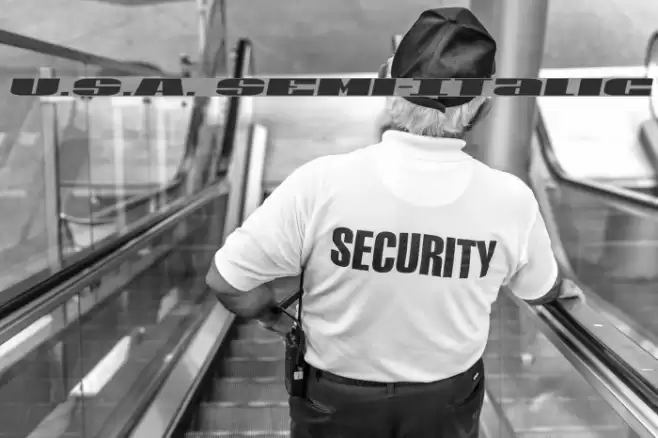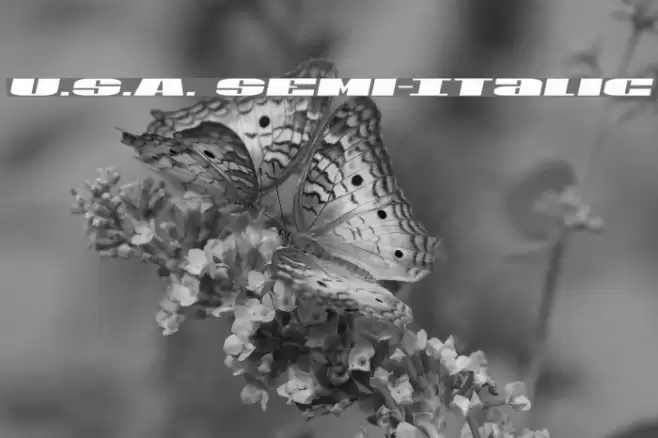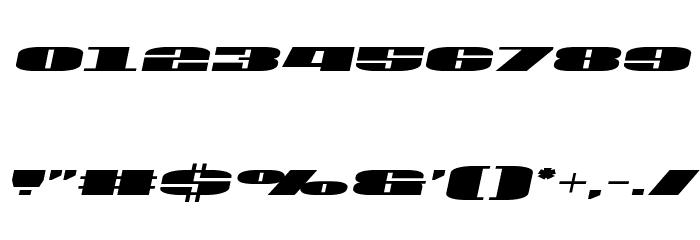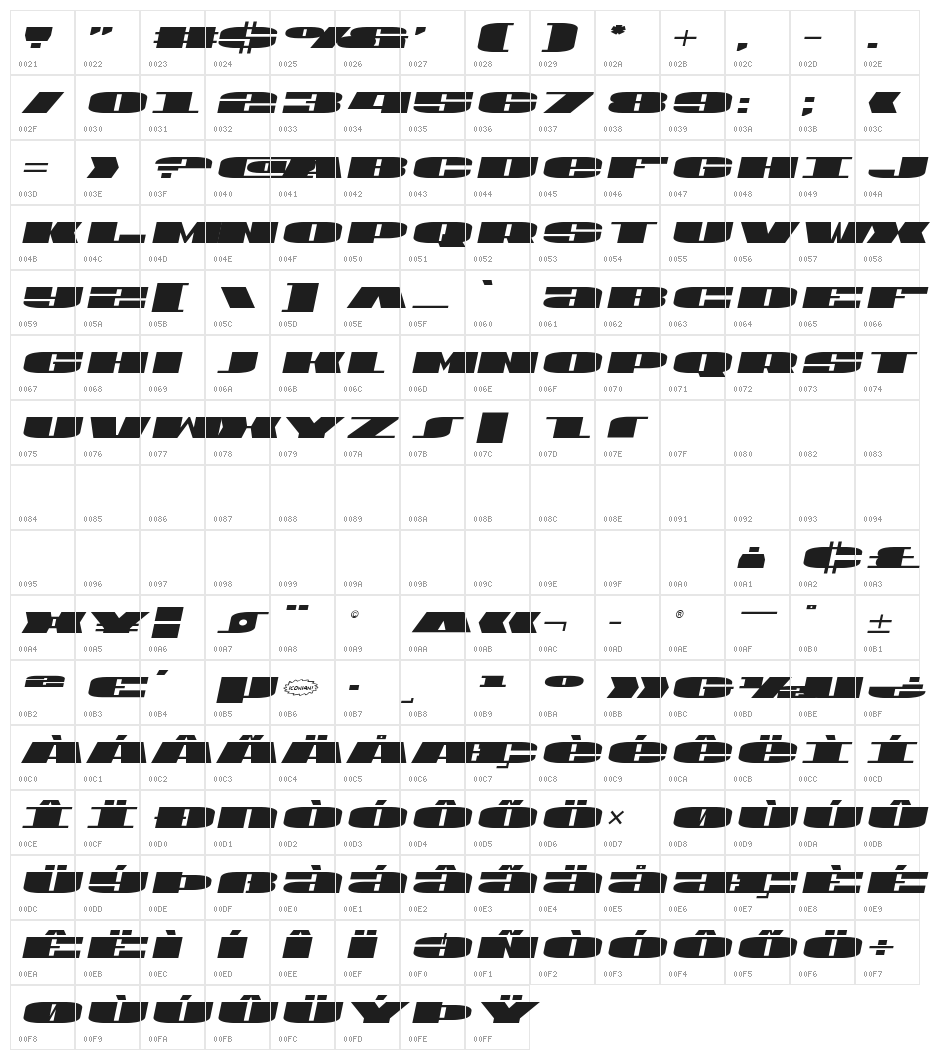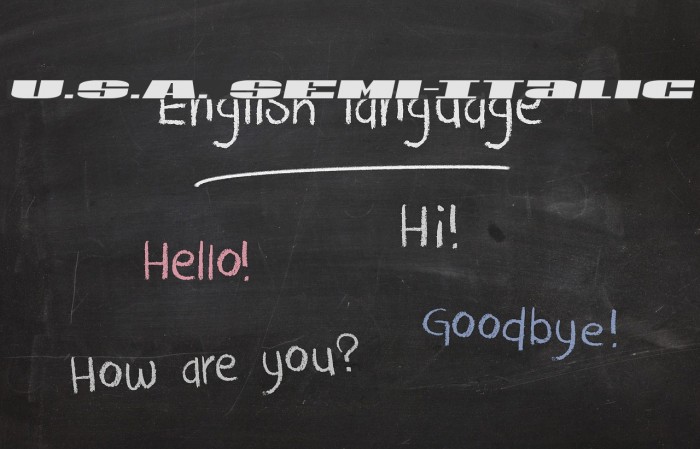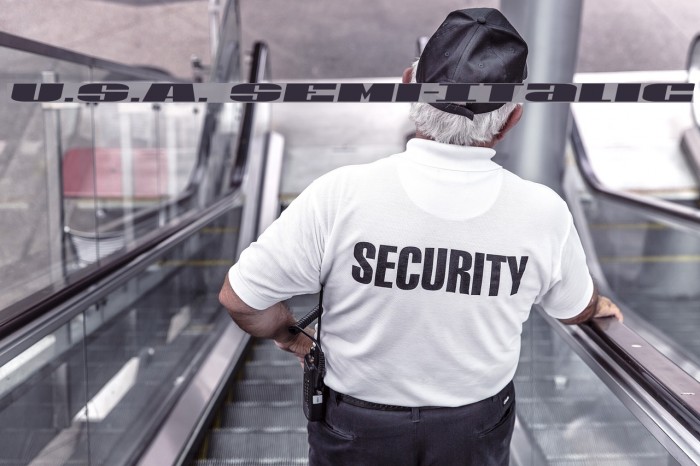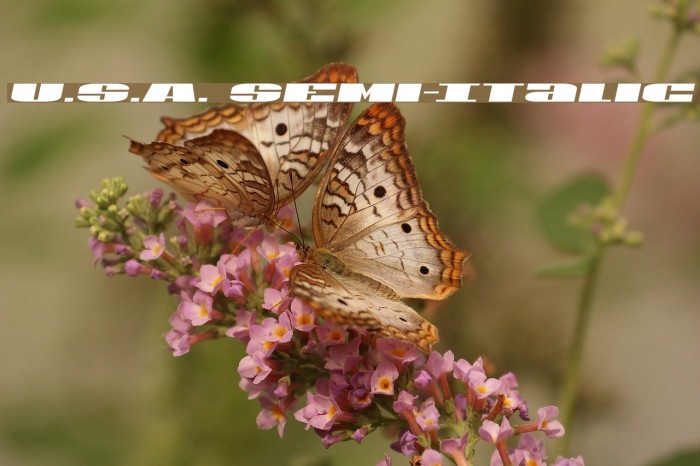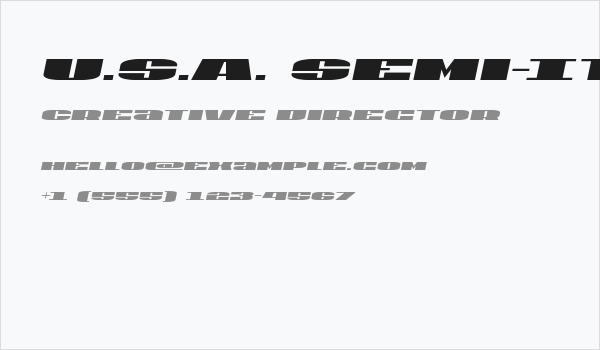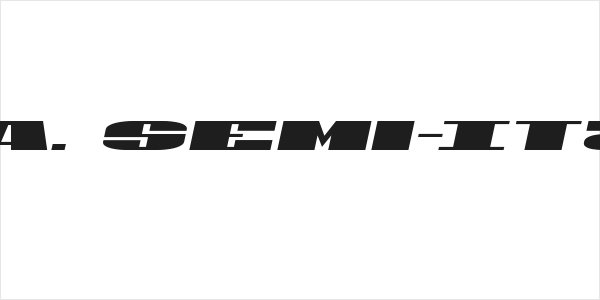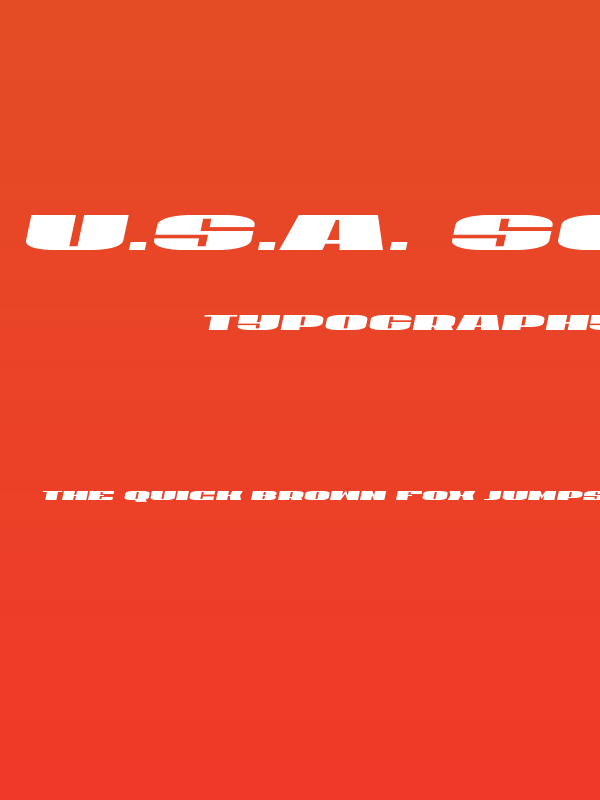
U.S.A. Semi-Italic Font
U.S.A. Semi-Italic Description
This font features a bold and dynamic design with a semi-italic slant, giving it a sense of motion and energy. The characters are wide and robust, with thick strokes that convey strength and impact. The uppercase and lowercase letters maintain a consistent style, with a slight forward tilt that enhances the italic effect. Numbers and special characters are designed to match the boldness of the alphabet, ensuring a cohesive look across all text. The font's unique style makes it stand out, making it suitable for attention-grabbing designs.
A bold, semi-italic font with a dynamic and energetic style from Uncategorized fonts.
- Proposed Projects: Ideal for sports branding, action-themed posters, dynamic logos, and impactful headlines.